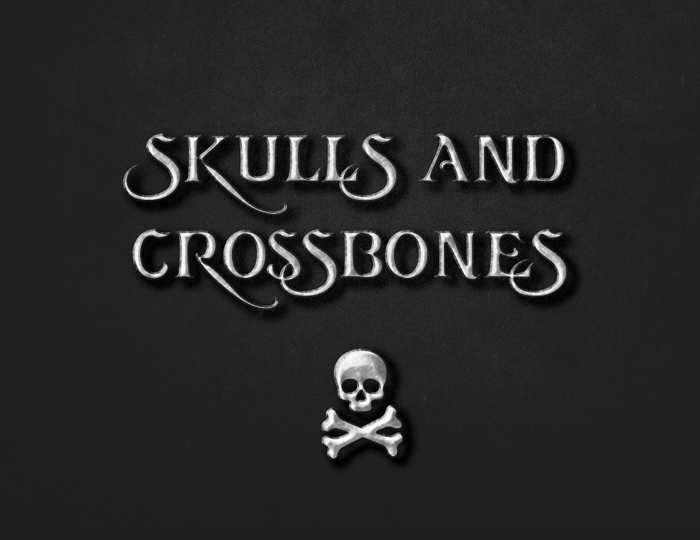
Skulls and Crossbones Font
I came upon a poster of Tinkerbell “Pirate Fairy” movie, and couldn’t help but notice how beautiful the title was. So, initial inspiration was Tinkerbell, although the font turned out a lot “darker”.
Includes “surprise” characters and Greek letters.
I had the same issue as Victor. I love this font, but it's not as usable because of the issue with the R
hi ! when i type a latter right after a R i got an large space, the lettre does'nt come on top of the R like in your presentation. how's so ?